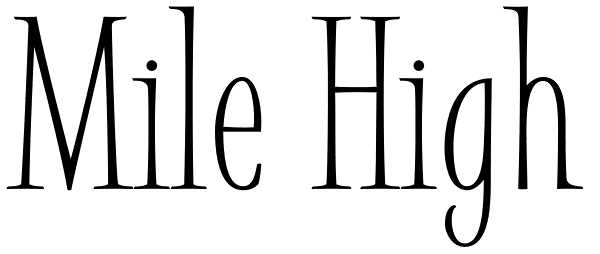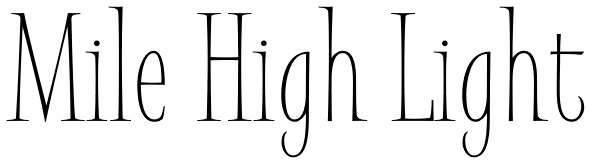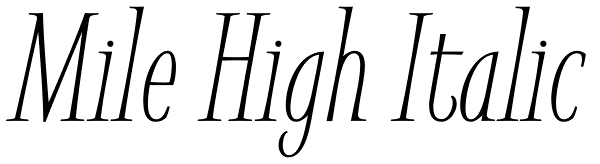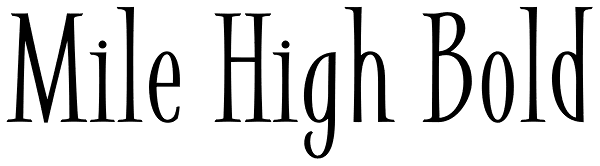
Mile High
Mile High is an airy and elegant font featuring exceptionally thin and tall characters suitable for text as well as display. Featuring 4 weights and italics, Mile High offers versatility for cohesive graphics applications. Especially lovely is text...